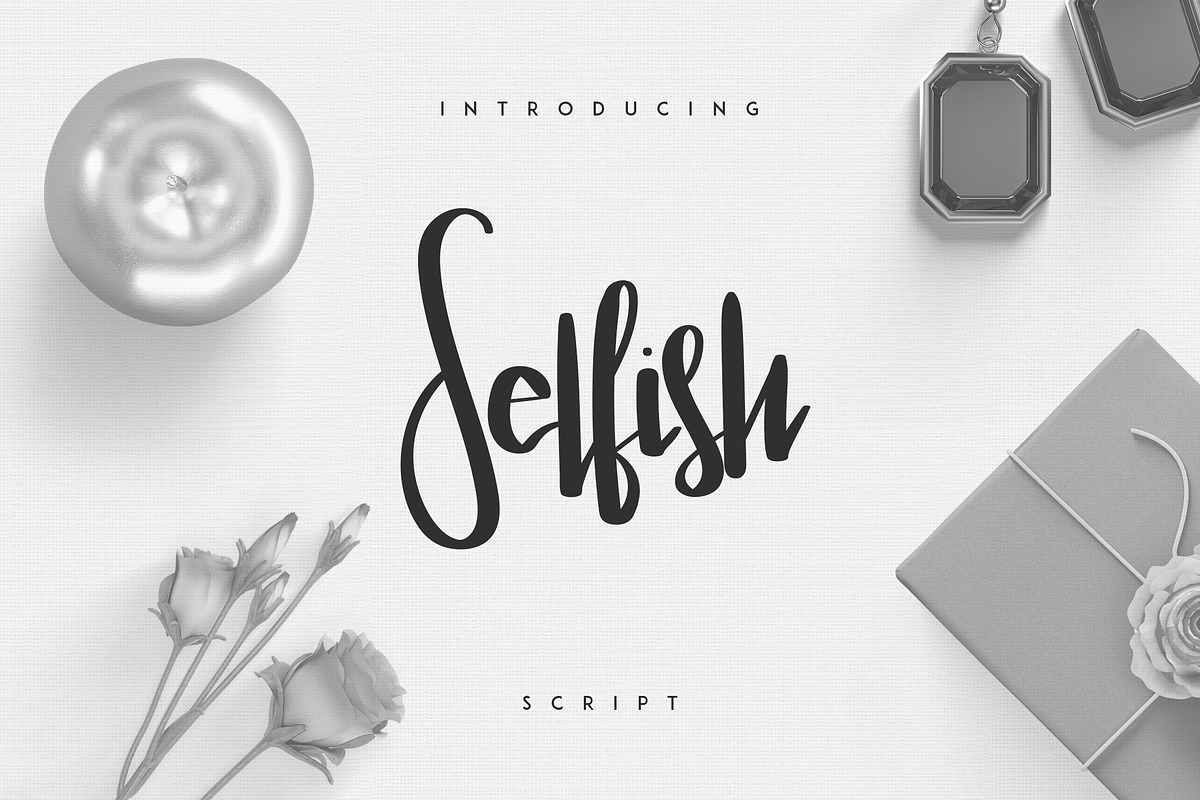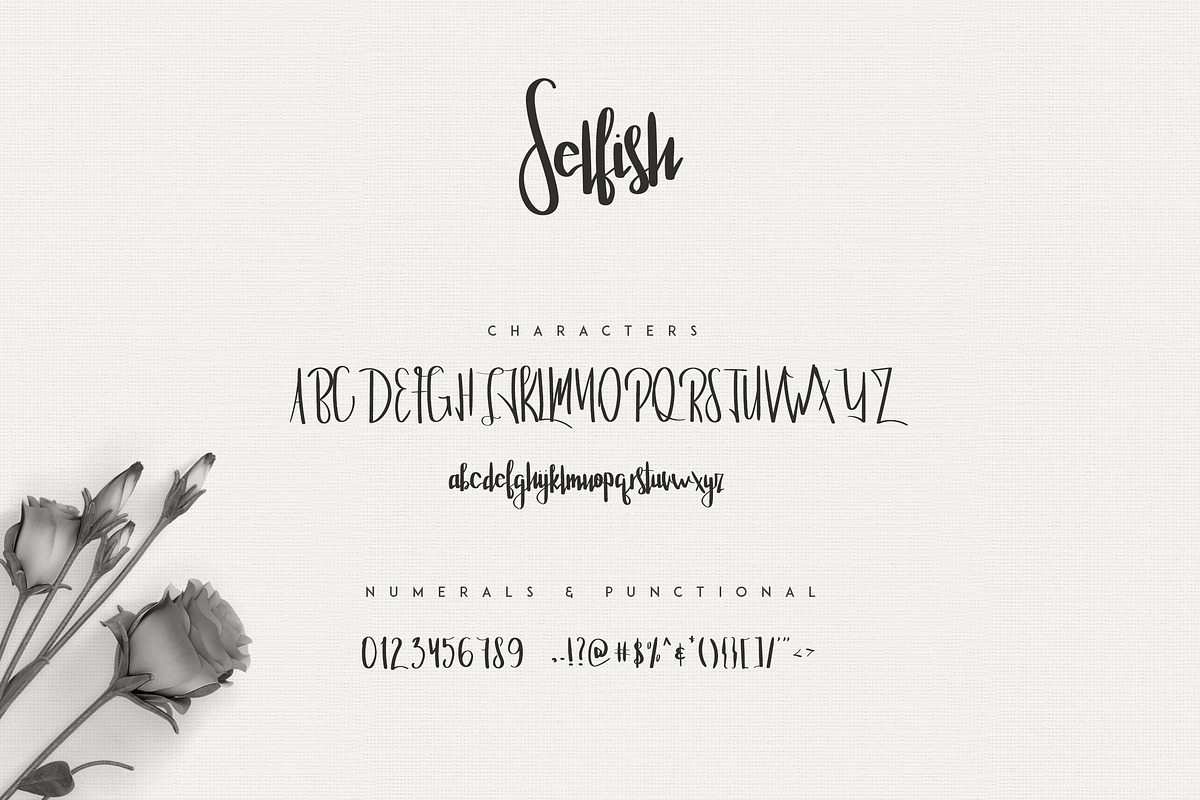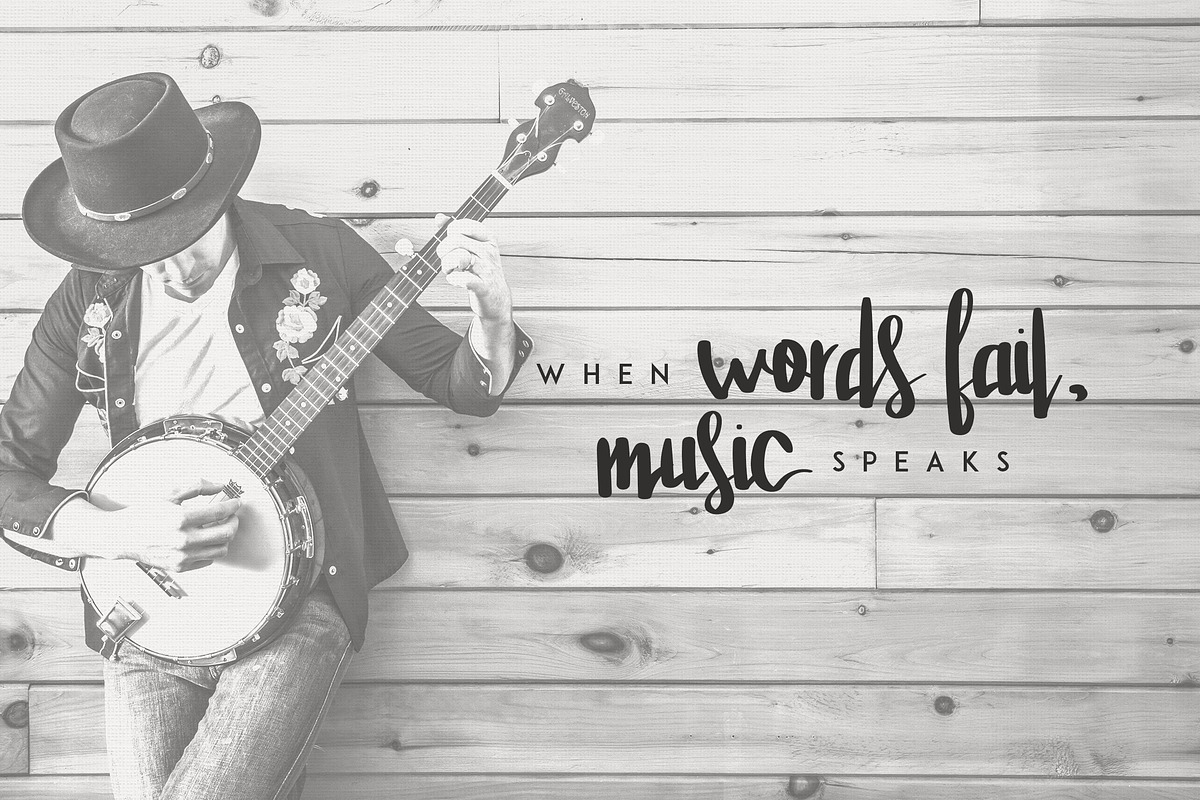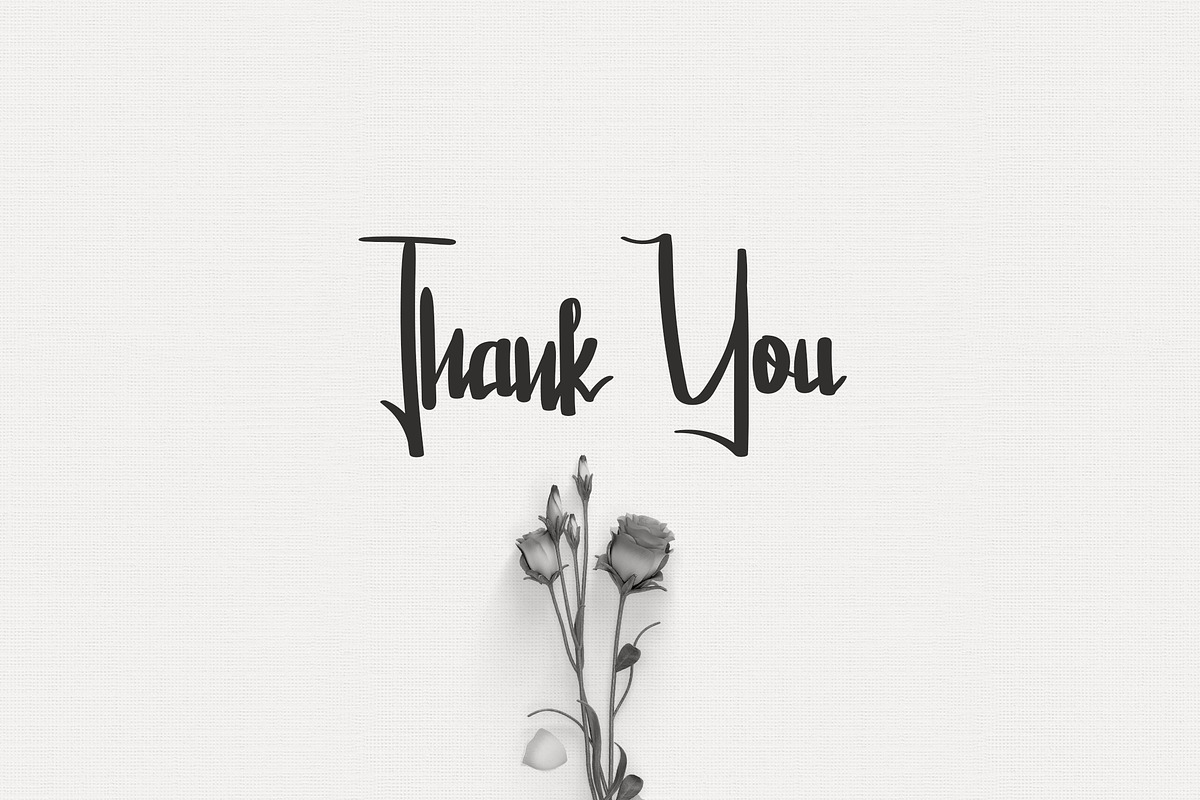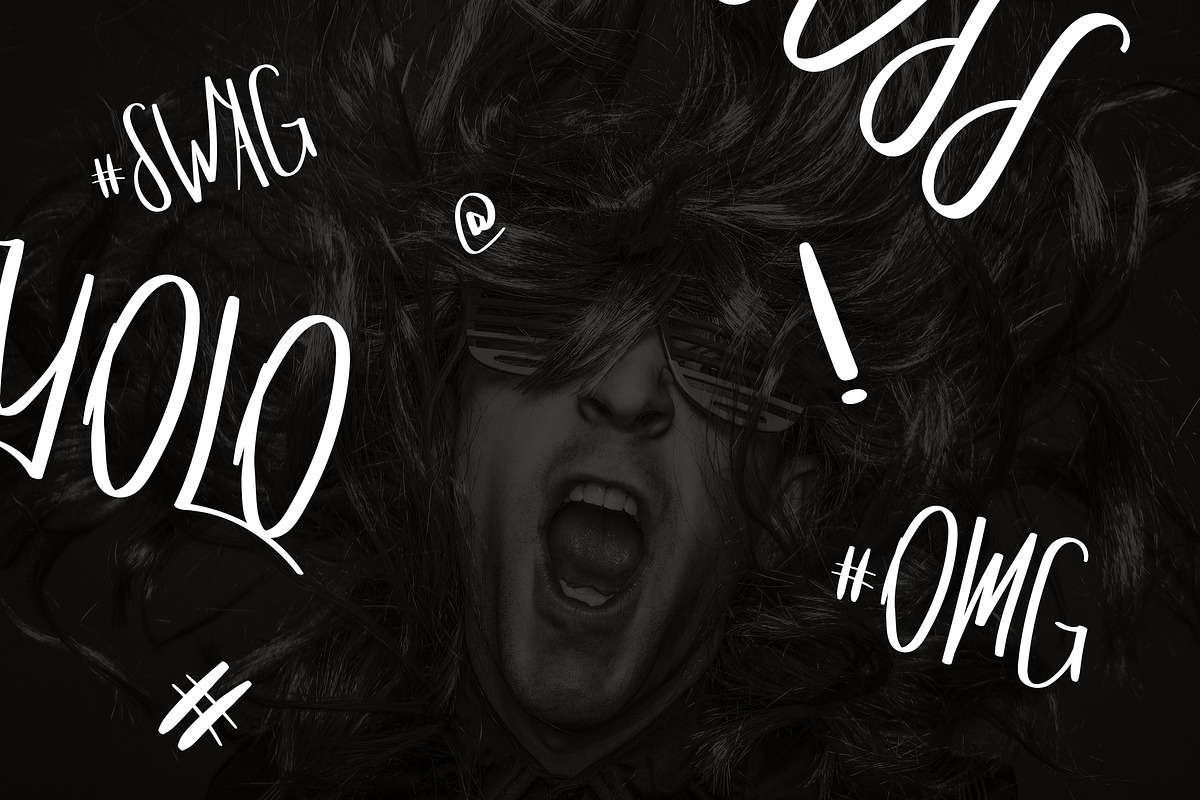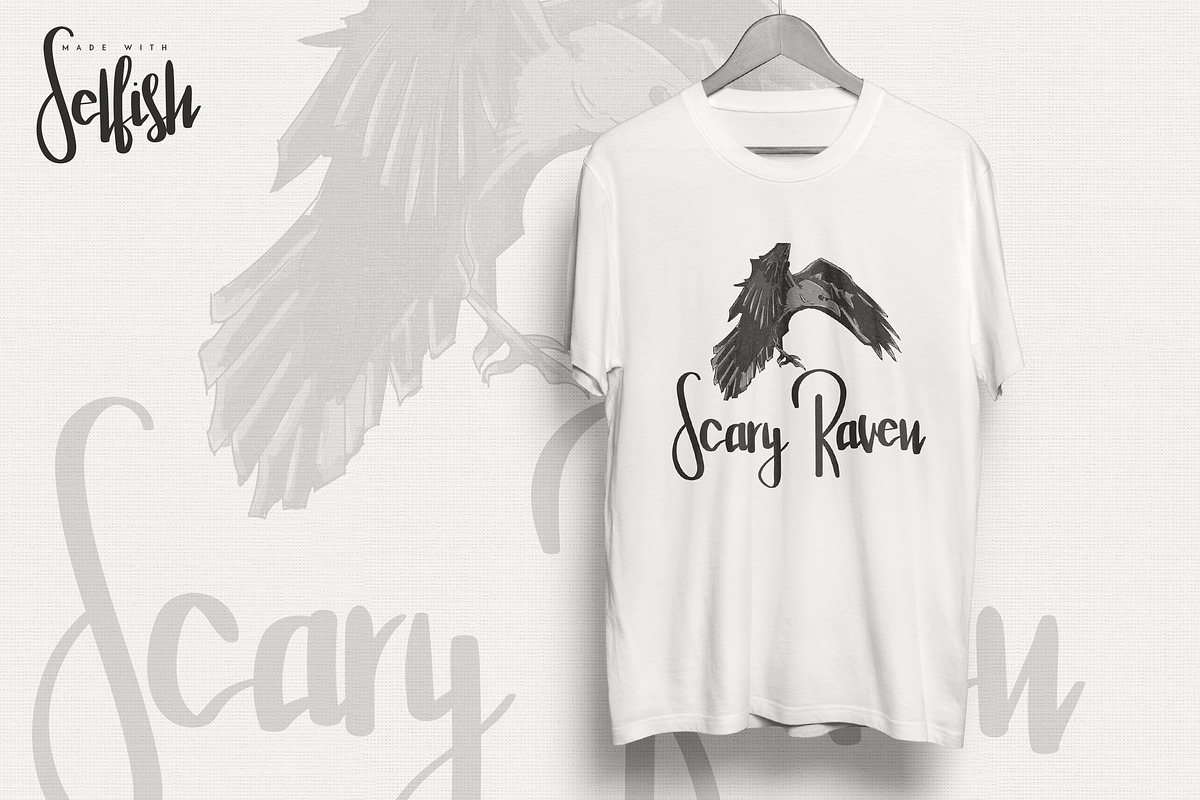
Selfish Script
Introducing: Selfish Script ! A handwritten font with a personal charm. With dry clean lines, Selfish is perfect for branding projects, home-ware designs, product packaging - or simply as a stylish text overlay to any background image.
Selfish Script by VP Fonts fits naturally into Branding, posters, packaging, typography.